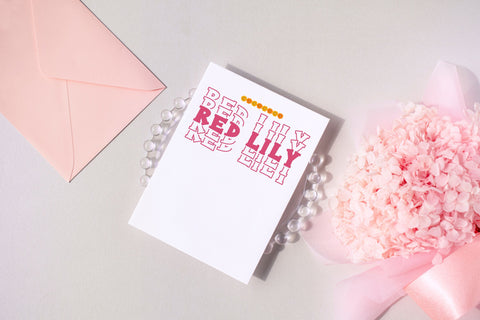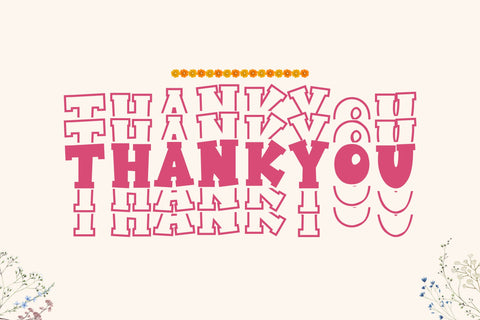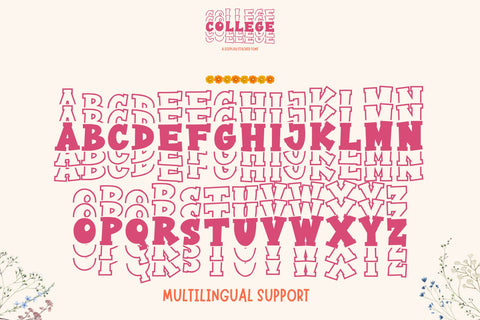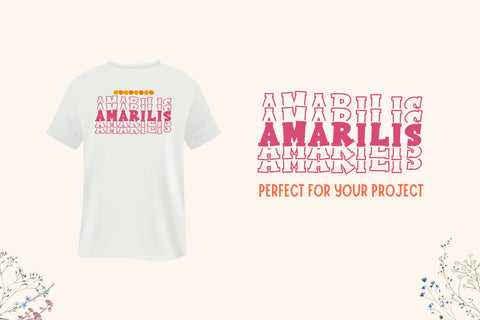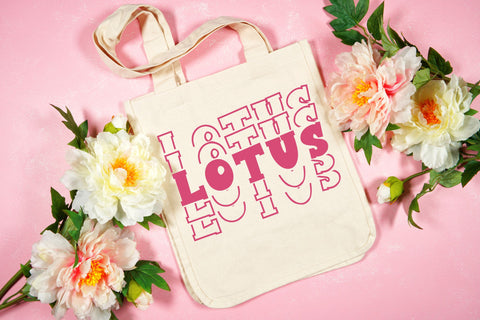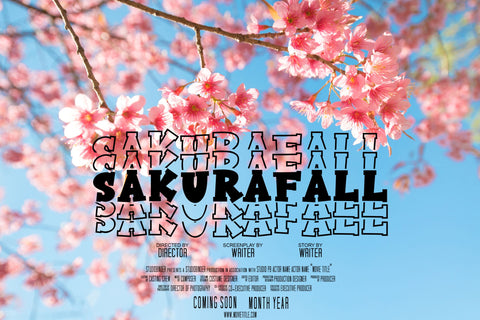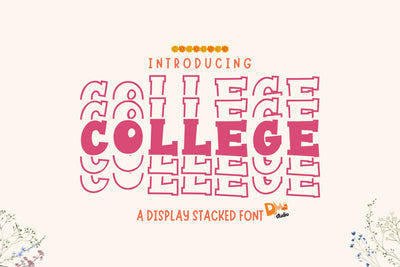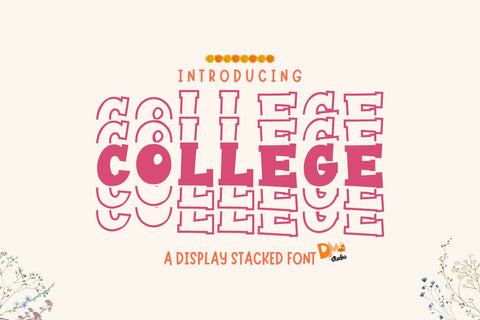
Stacked College
Stacked College – A Display Stacked Font
Stacked College is a bold and structured display font featuring a stacked letter arrangement for a unique and eye-catching design. Inspired by classic collegiate typography, this font is perfect for sports posters, academic branding, varsity apparel, and bold headlines. Its clean and modern look makes it versatile for both professional and creative projects.
- Stacked Letter Design: A bold and structured font with a stacked arrangement for a unique visual impact.
- Perfect for College & Sports Themes: Ideal for posters, varsity branding, academic projects, and team apparel.
- Modern & Versatile: Great for headlines, banners, and standout typography.
- Complete Character Set: Includes uppercase, lowercase, numbers, punctuation, and multilingual support.